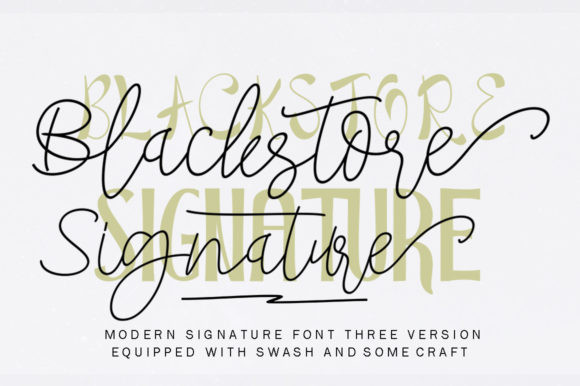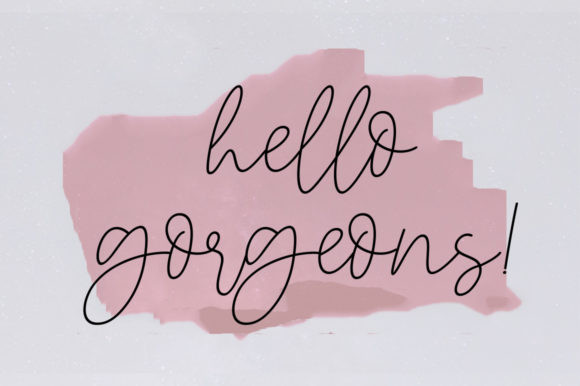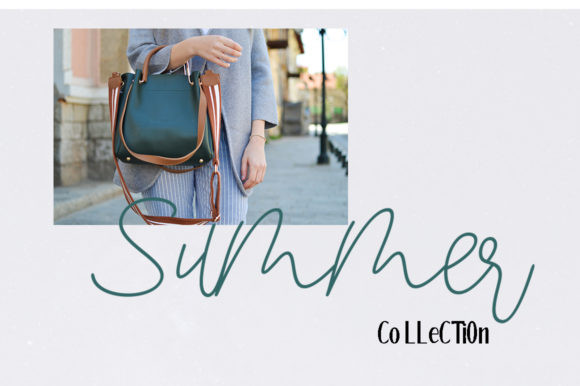
Blackstore Font
Blackstore Signature is a gorgeous script coming in three distinct versions, True, Capital and Regular. Combine them and achieve outstanding results in an instant!